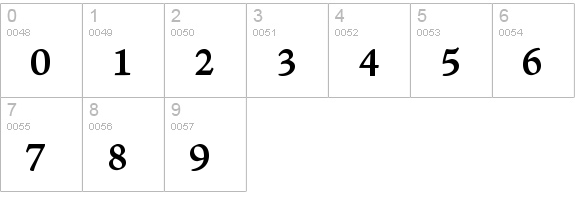
Adobe Jenson Pro Bold Caption is a strong, high-contrast variant in the Adobe typeface family \xE2\x80\x94 well suited to headlines, attention-grabbing titles, and strong calls-to-action.
Adobe Jenson Pro Bold Caption is a sophisticated and elegant font that exudes a sense of timeless beauty and classic design. With its bold strokes and refined curves, this font is perfect for adding emphasis and style to any project. Whether you're designing a logo, creating a printed piece, or crafting a digital presentation, Adobe Jenson Pro Bold Caption will elevate your work to the next level. And the best part? Adobe Jenson Pro Bold Caption is available for free download at FontsMarket.com. Now you can access this premium font without breaking the bank, making it easier than ever to bring a touch of luxury to your designs. Don't miss out on this opportunity to enhance your creations with the exquisite beauty of Adobe Jenson Pro Bold Caption. Download it today and elevate your design game!